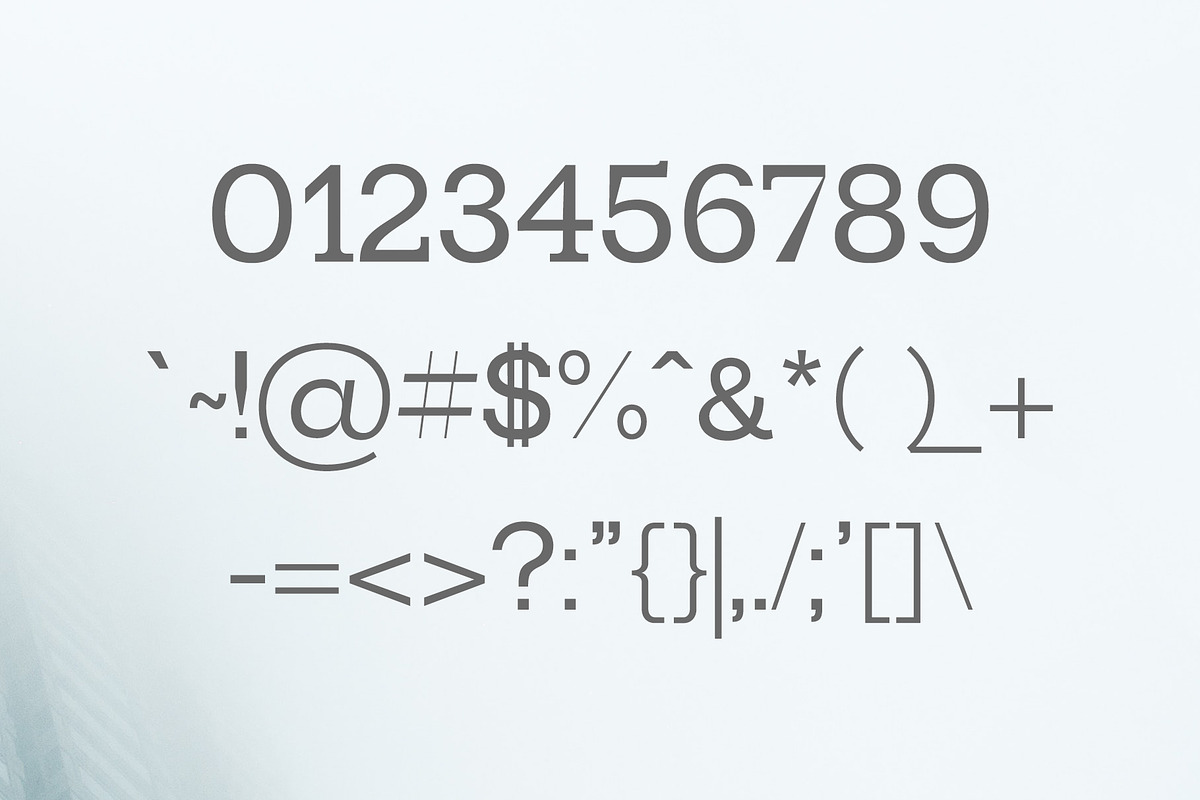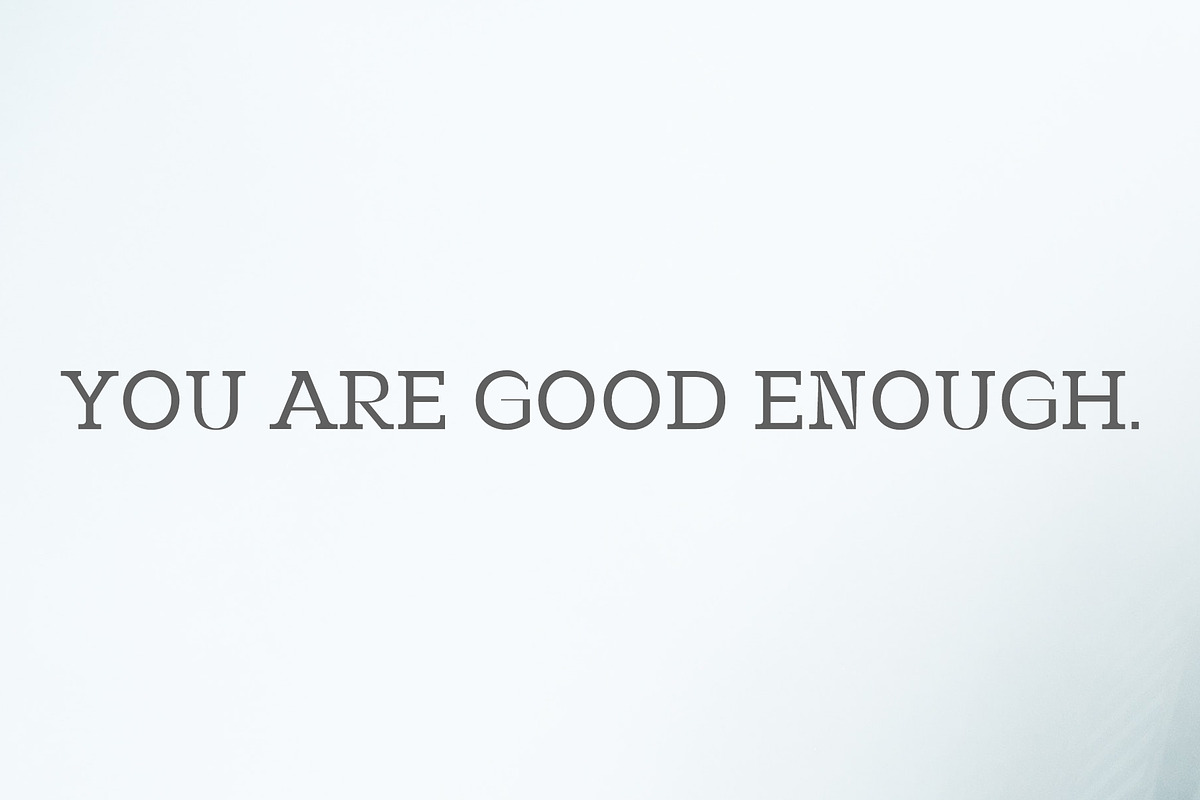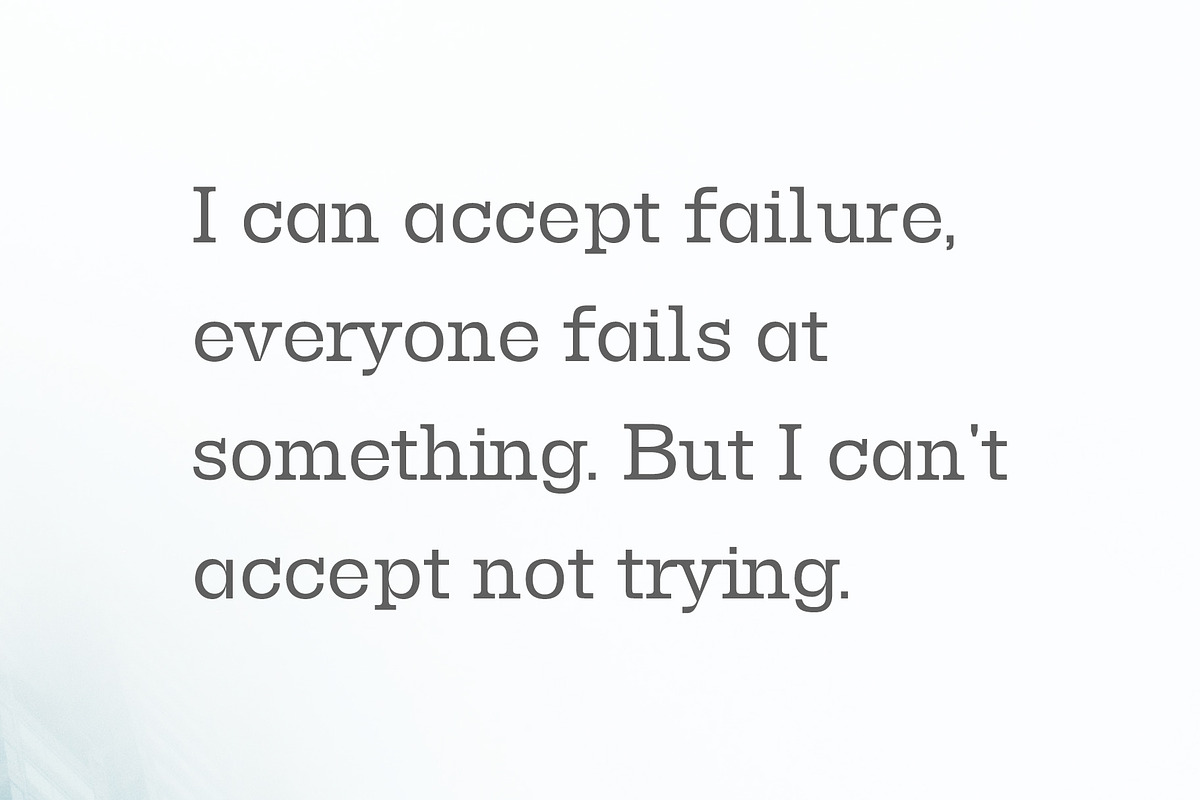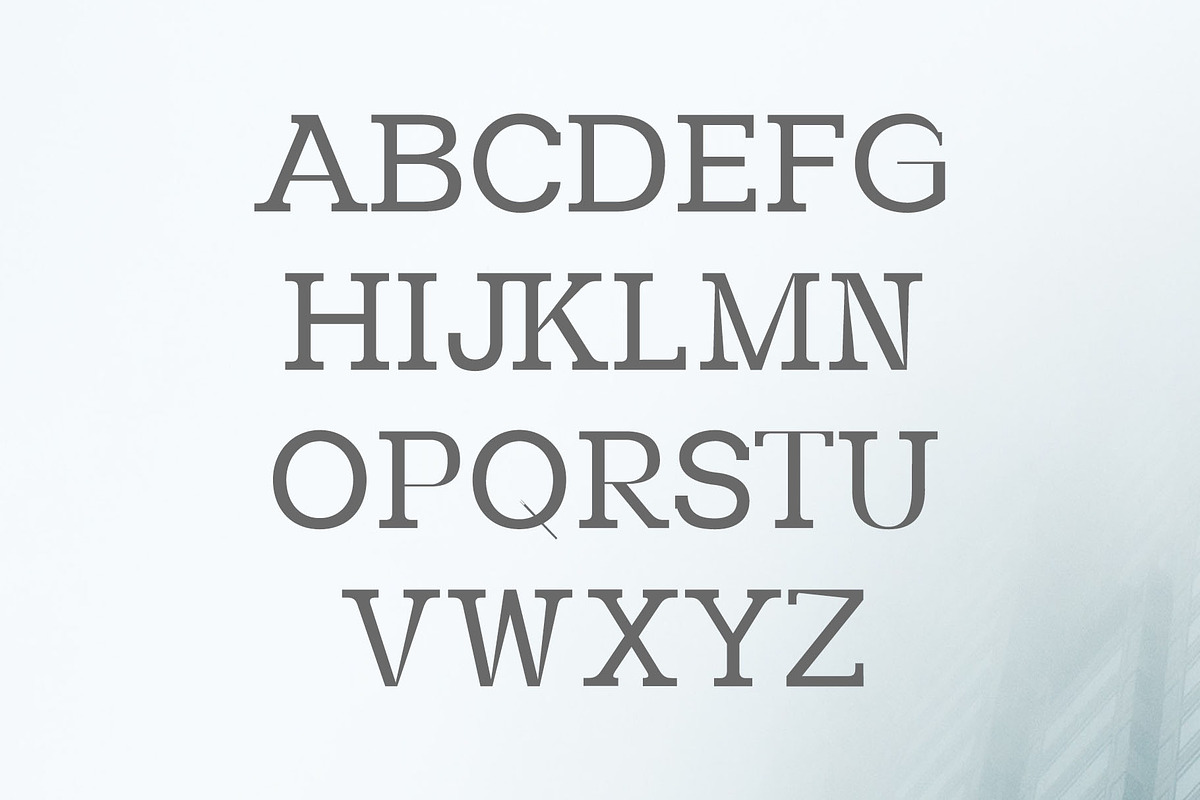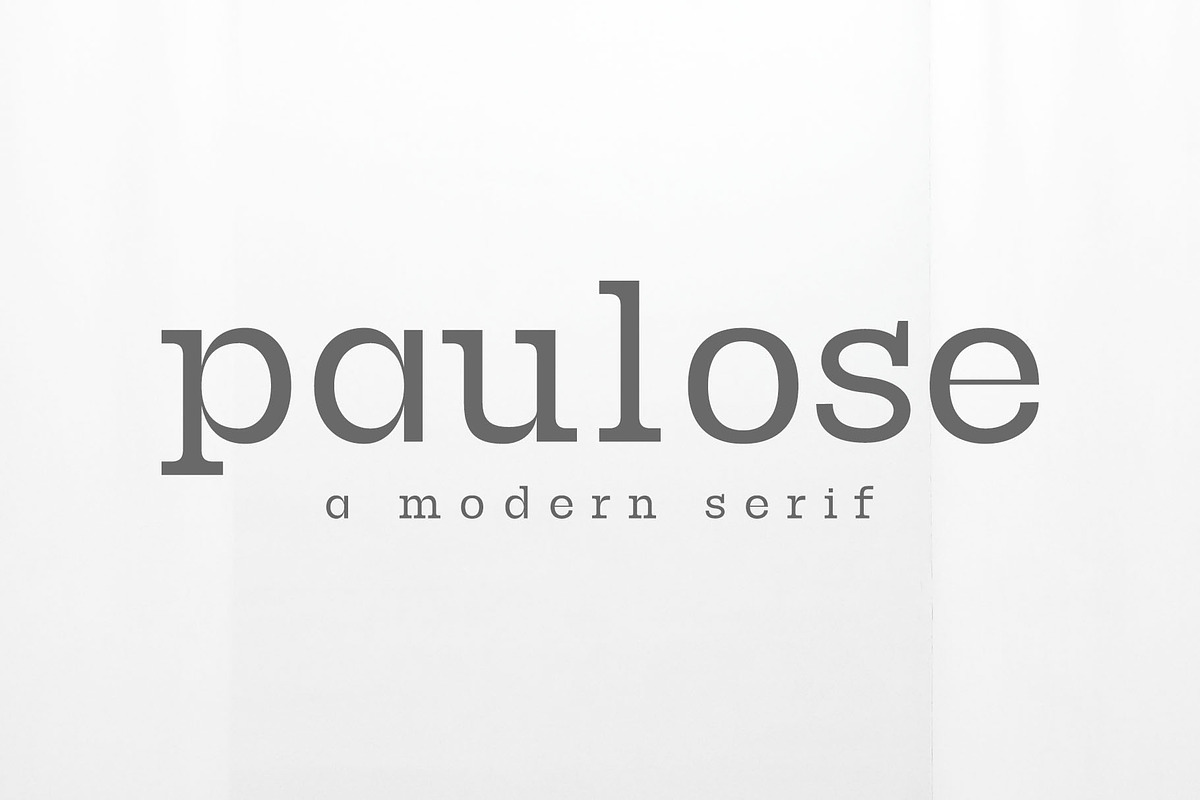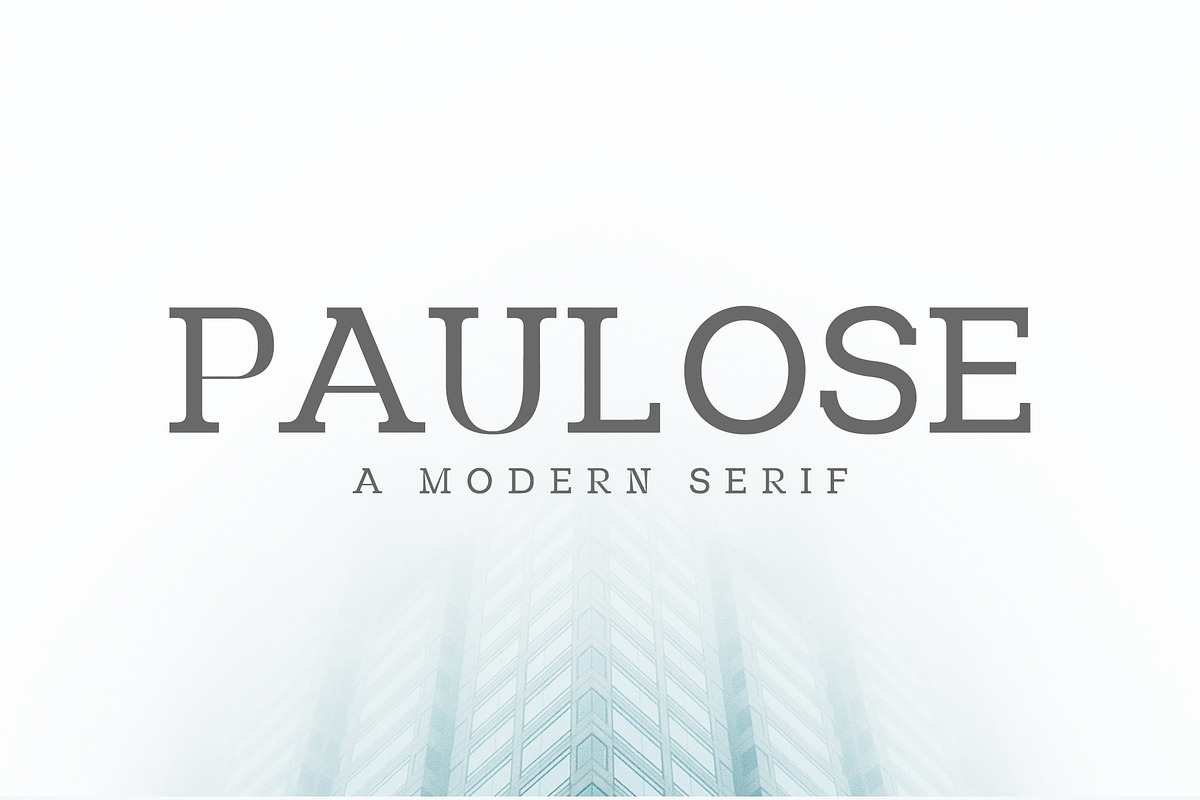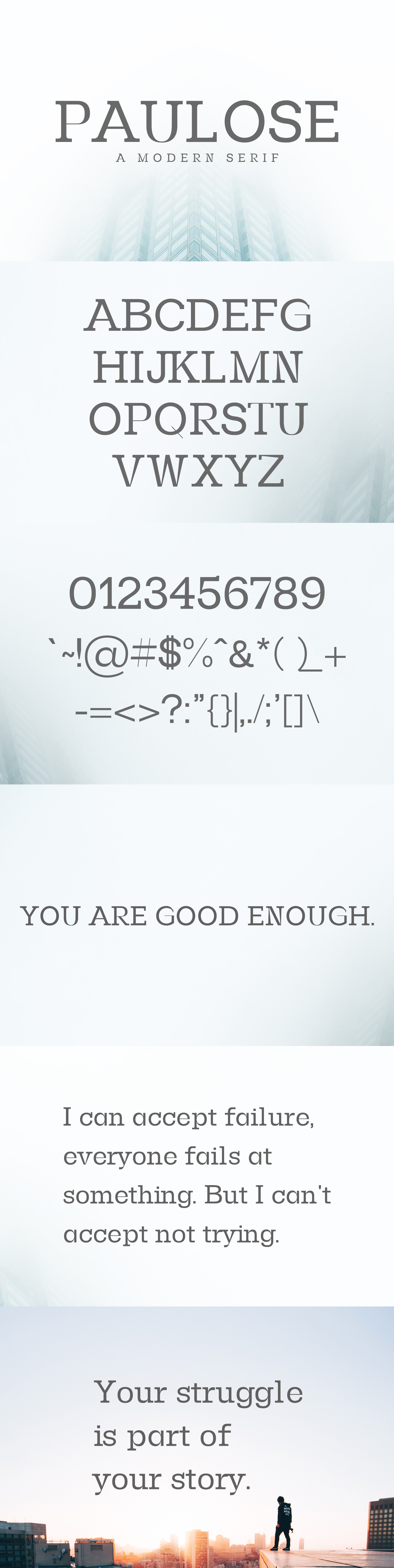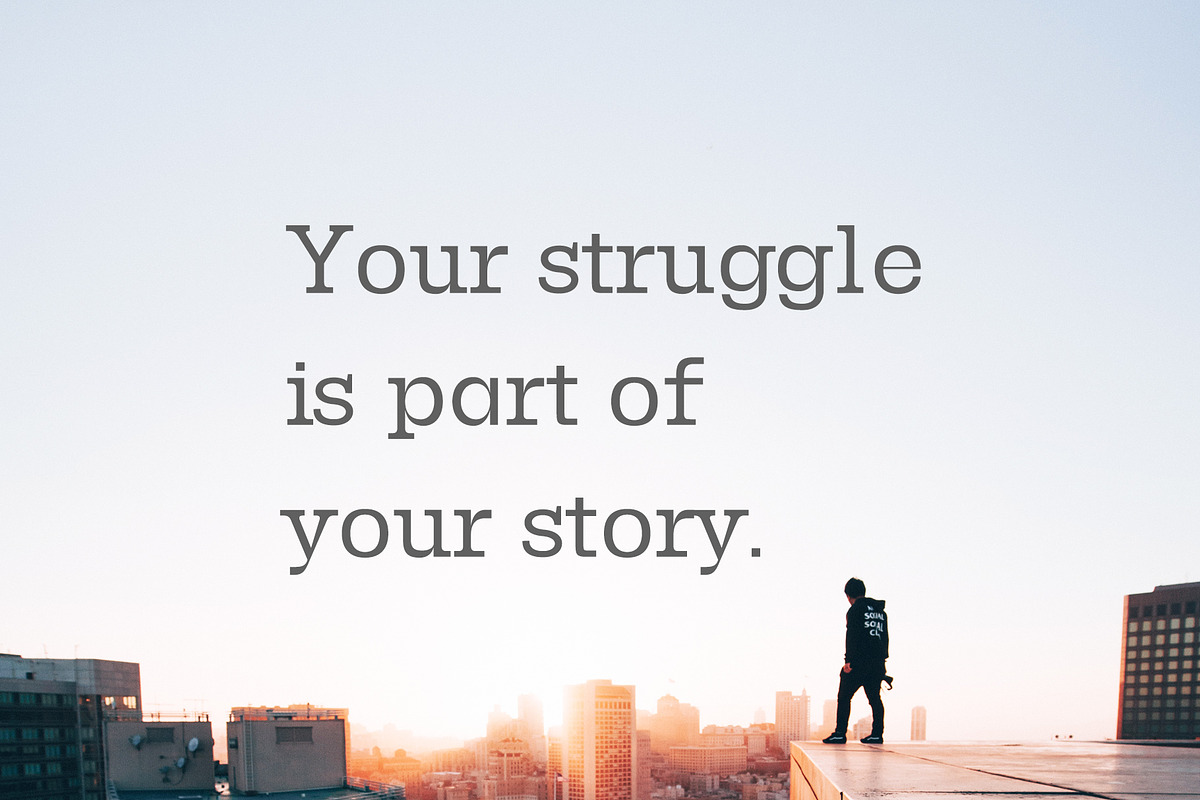
Paulose Modern Serif Font Family
Paulose is a stylish modern rounded serif font with classy unique design. Paulose comes in 3 weights with multilingual support. It is great for headlines, logotypes, signage, advertising, magazine, logos, invitations, texts, posters, notices, titles, name card, web layouts, headers, branding, weddings, social media, product design, stationery, and other any business related.
- Font Weight: Regular, Round and Bold
- Uppercase Letters
- Lowercase Letters
- Number and Punctuation